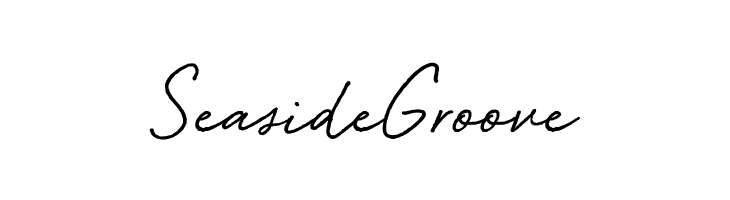
A playful and casual handwritten font with dynamic strokes and a friendly appearance.
A playful and whimsical font with smooth, rounded letterforms.
A playful, casual handwritten font with fluid strokes and a relaxed appearance.
A casual, handwritten-style font with fluid, connected characters.
A flowing, cursive script with elegant, sweeping strokes and dramatic flourishes.
An elegant and decorative script font with flowing, ornate characters.